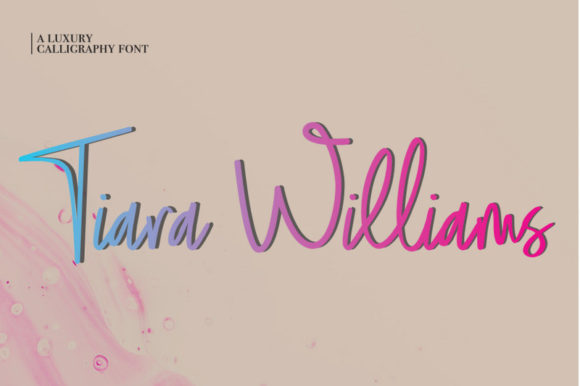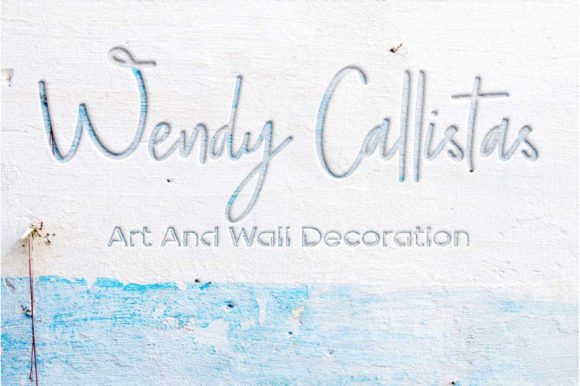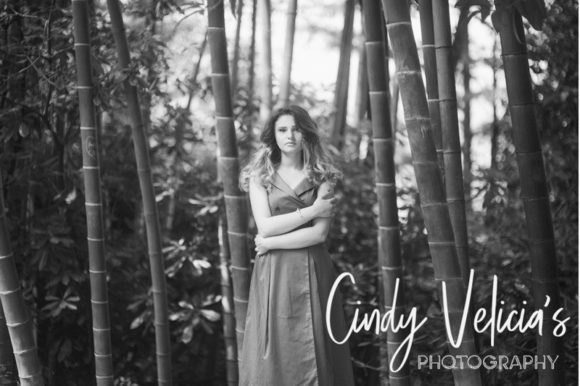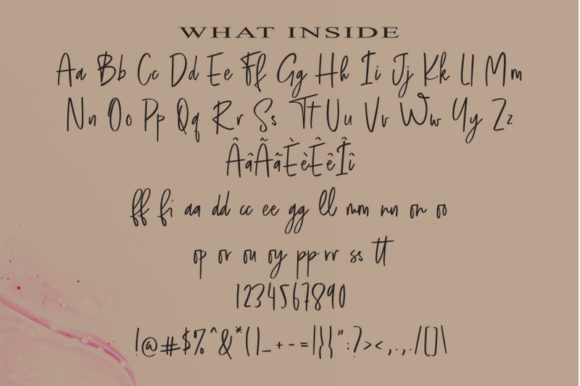
Tiara Williams Font
About Tiara Williams Font
Tiara Williams is a lovely and timeless handwritten font. It is the best choice for creating eye catching logos, branding and quotes. Every letter has a unique and beautiful touch, which will make your design come alive!